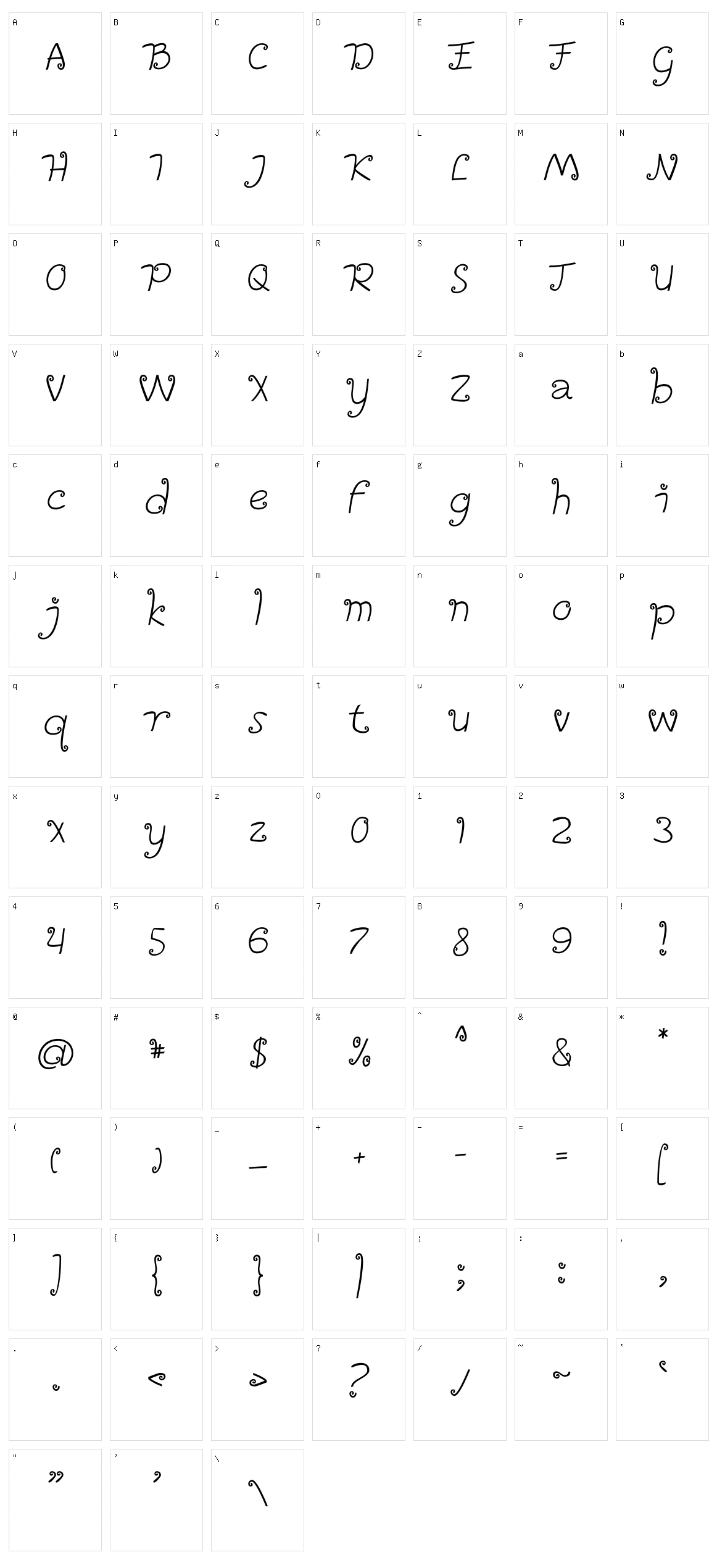
The free font Lencir is carefully designed by Ardi Santoso, showcasing a thoughtful balance of creativity and usability and falls under the Script font style. When you download the ZIP file, it contains only 8.82 KB of font files, making it lightweight and quick to download. Please review the license details below to understand permitted usage and distribution rights. If license information is not available, we recommend using this font for personal projects only or contacting the author directly for commercial usage permissions.